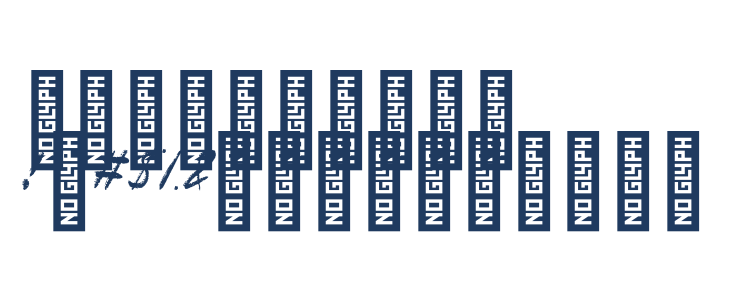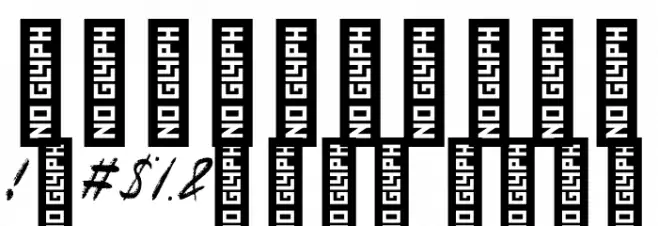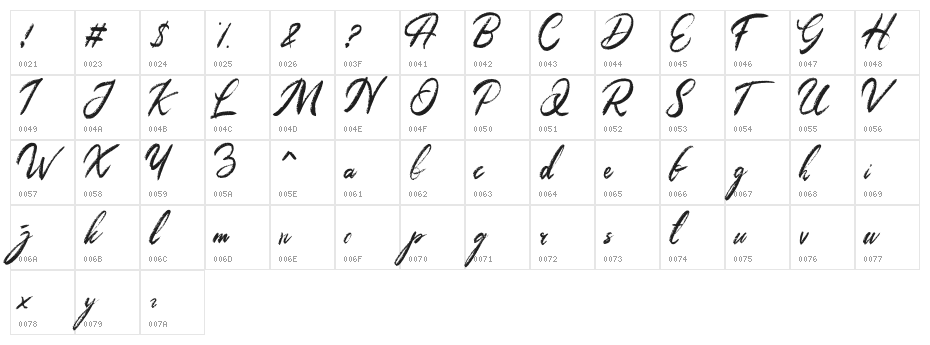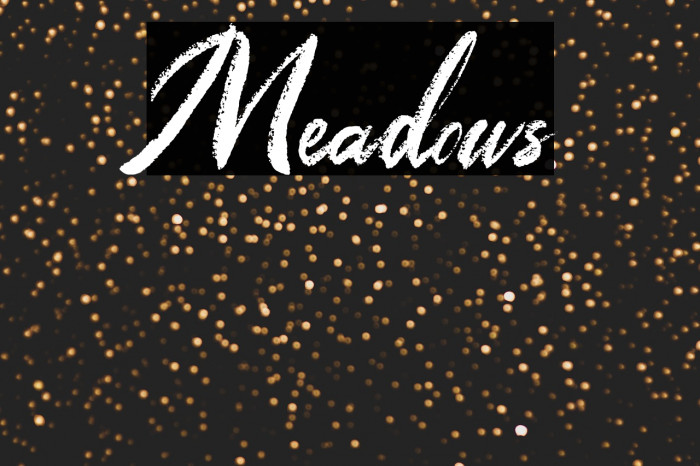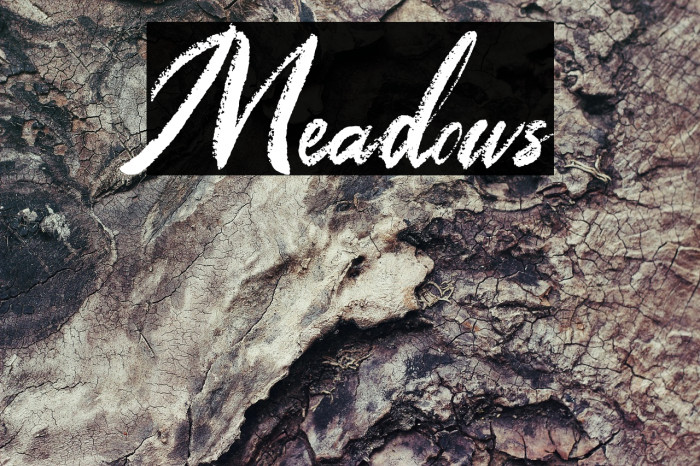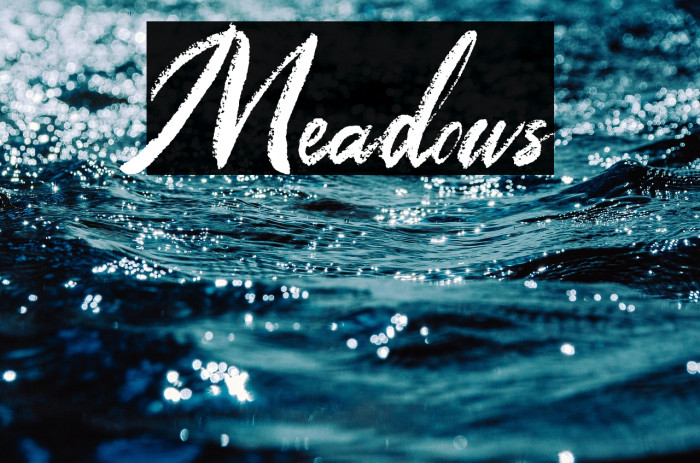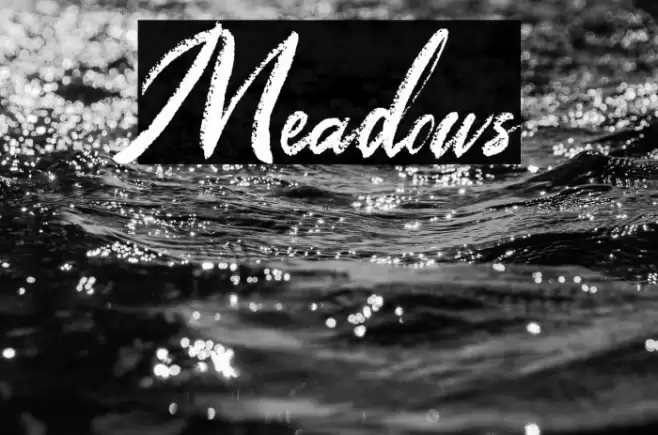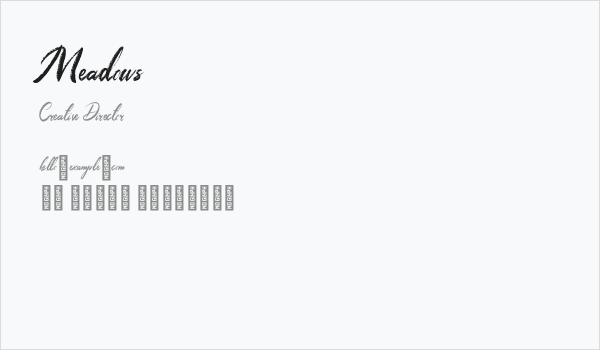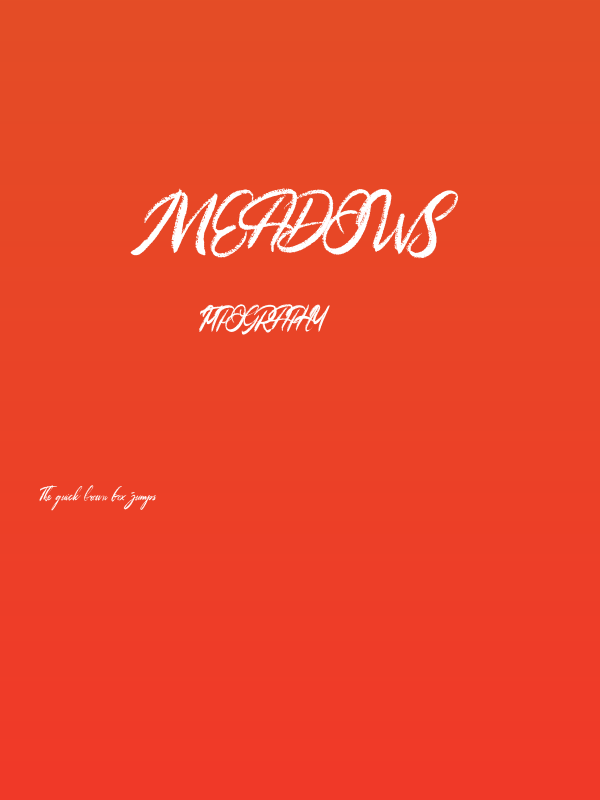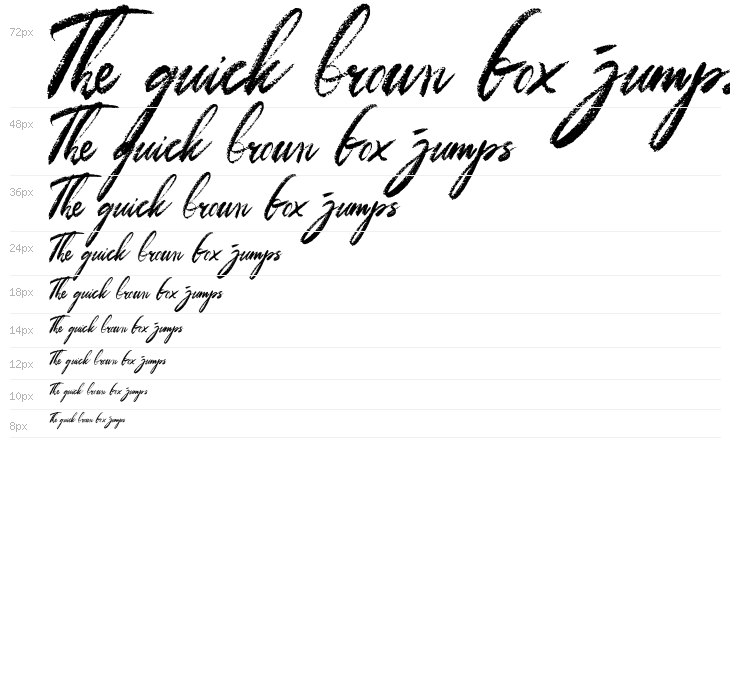
Meadows Font
Meadows Description
This font features a dynamic and expressive script style, characterized by its fluid and cursive strokes. The uppercase letters exhibit a bold and sweeping design, while the lowercase letters maintain a consistent flow with elegant loops and curves. The texture of the strokes gives a hand-brushed appearance, adding a sense of movement and energy. The font lacks certain special characters, which are replaced by placeholders, indicating a focus on aesthetic over complete character set. This style is ideal for projects that require a personal and artistic touch.
| Proposed Projects | Ideal for wedding invitations, greeting cards, branding projects, and artistic posters. |